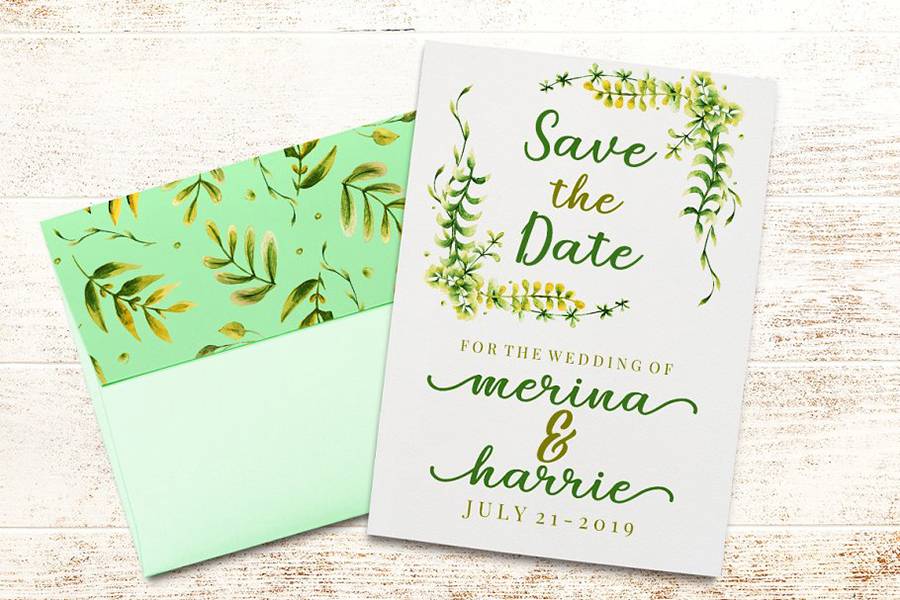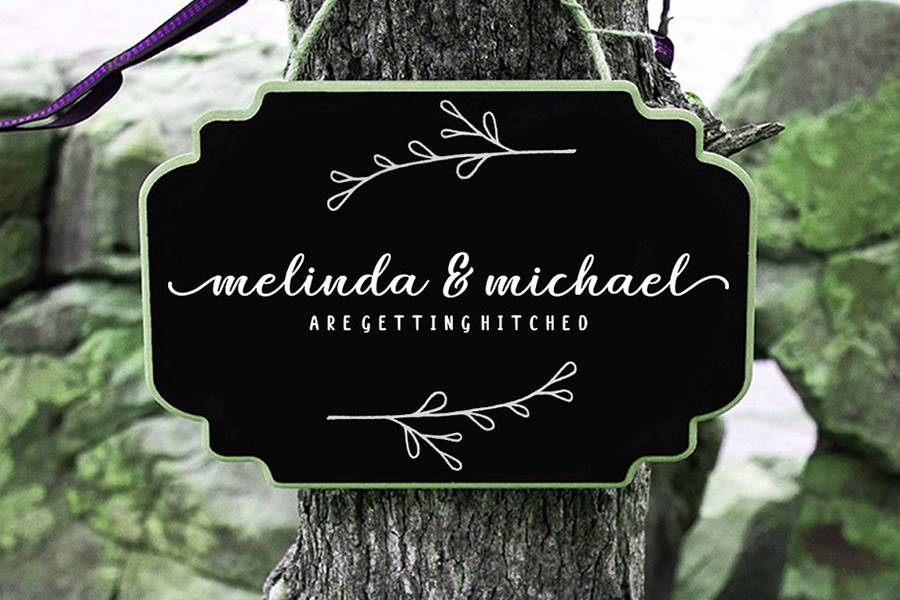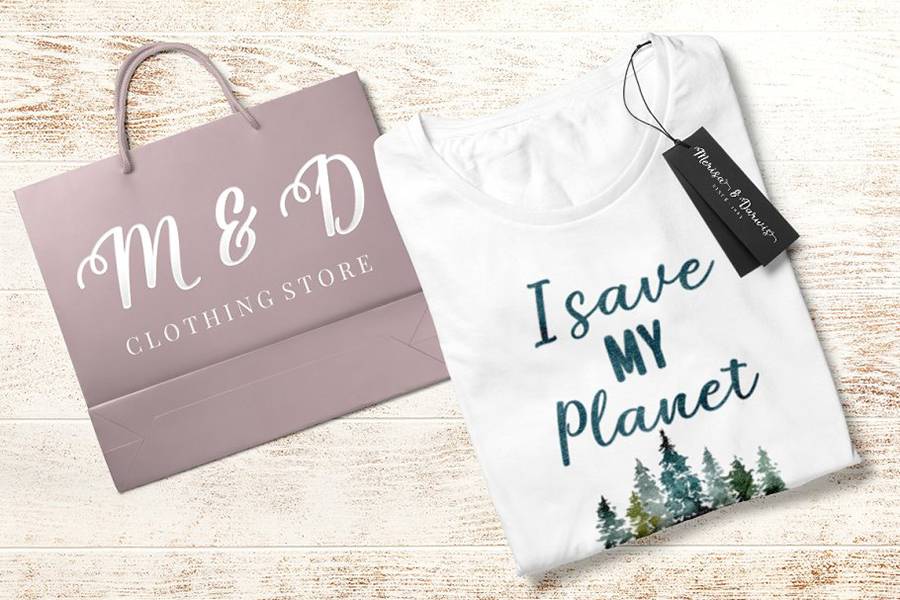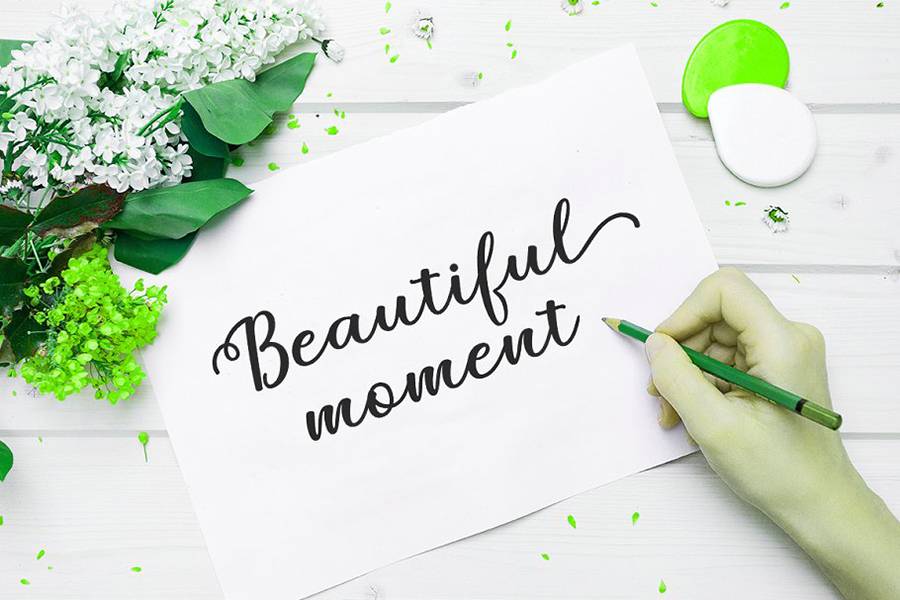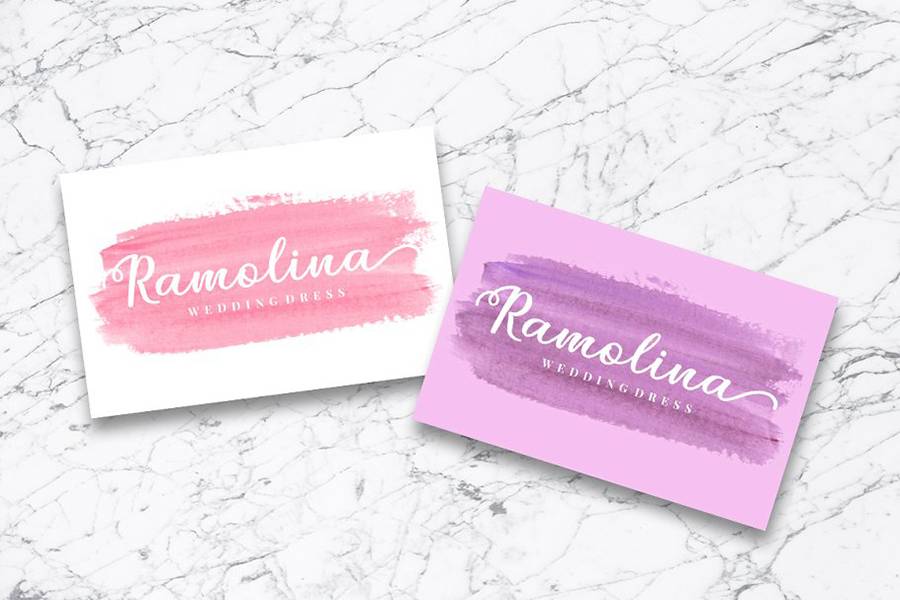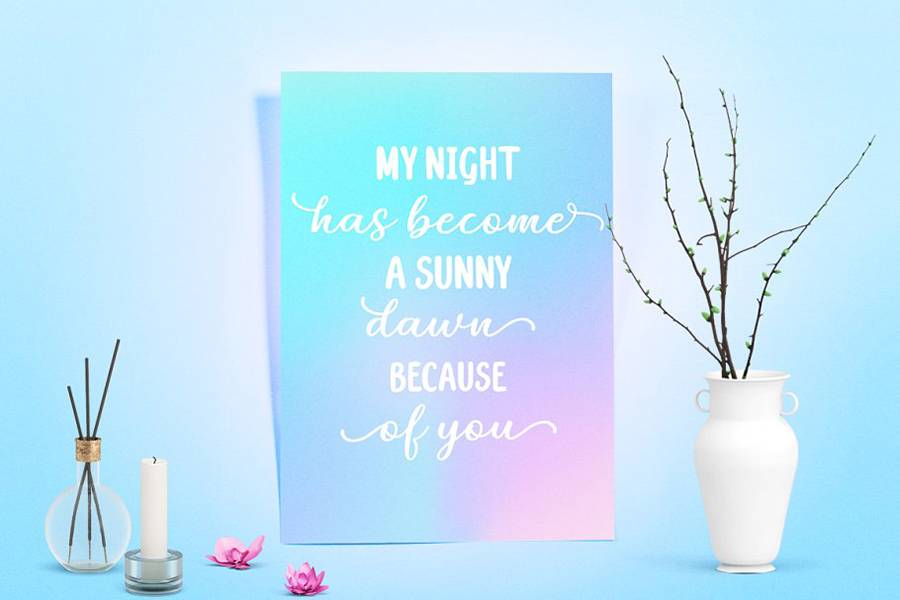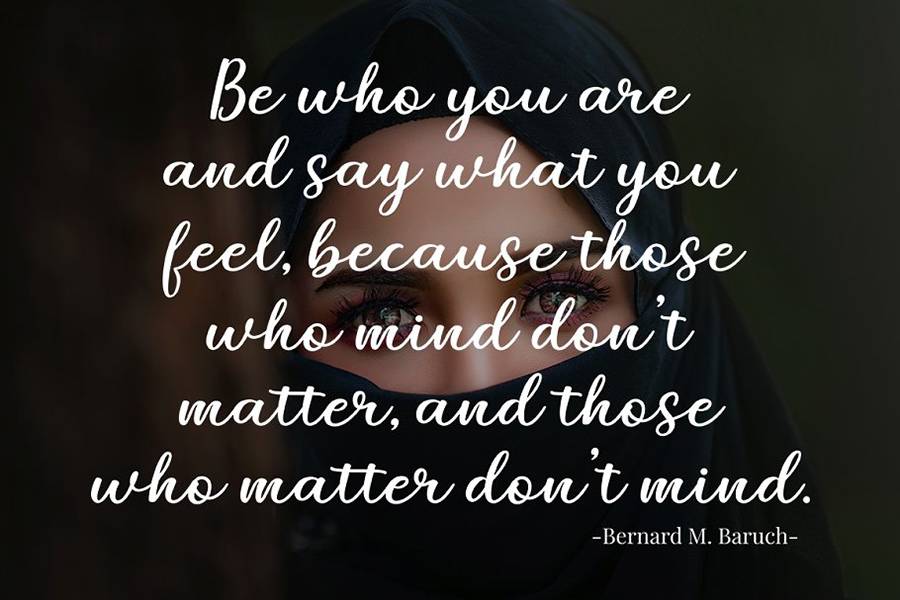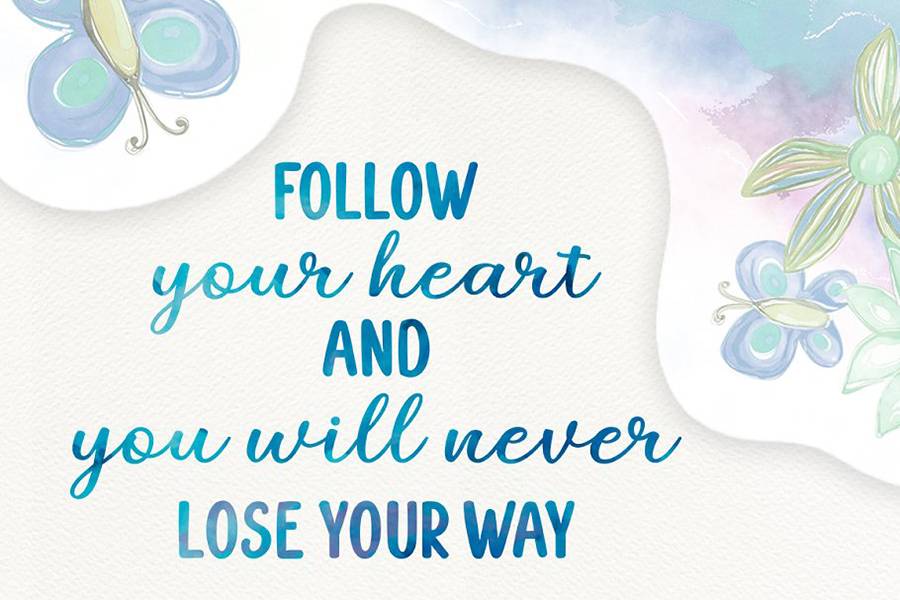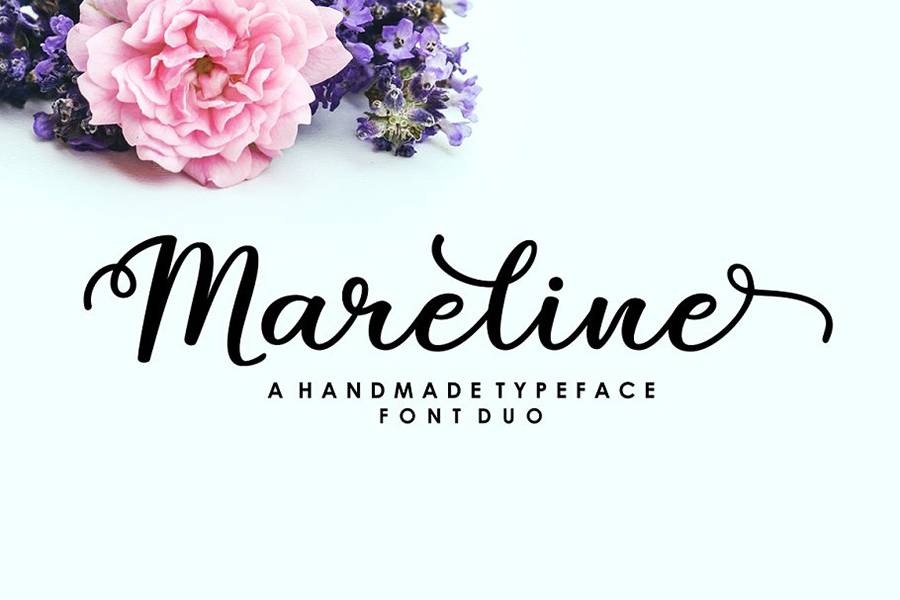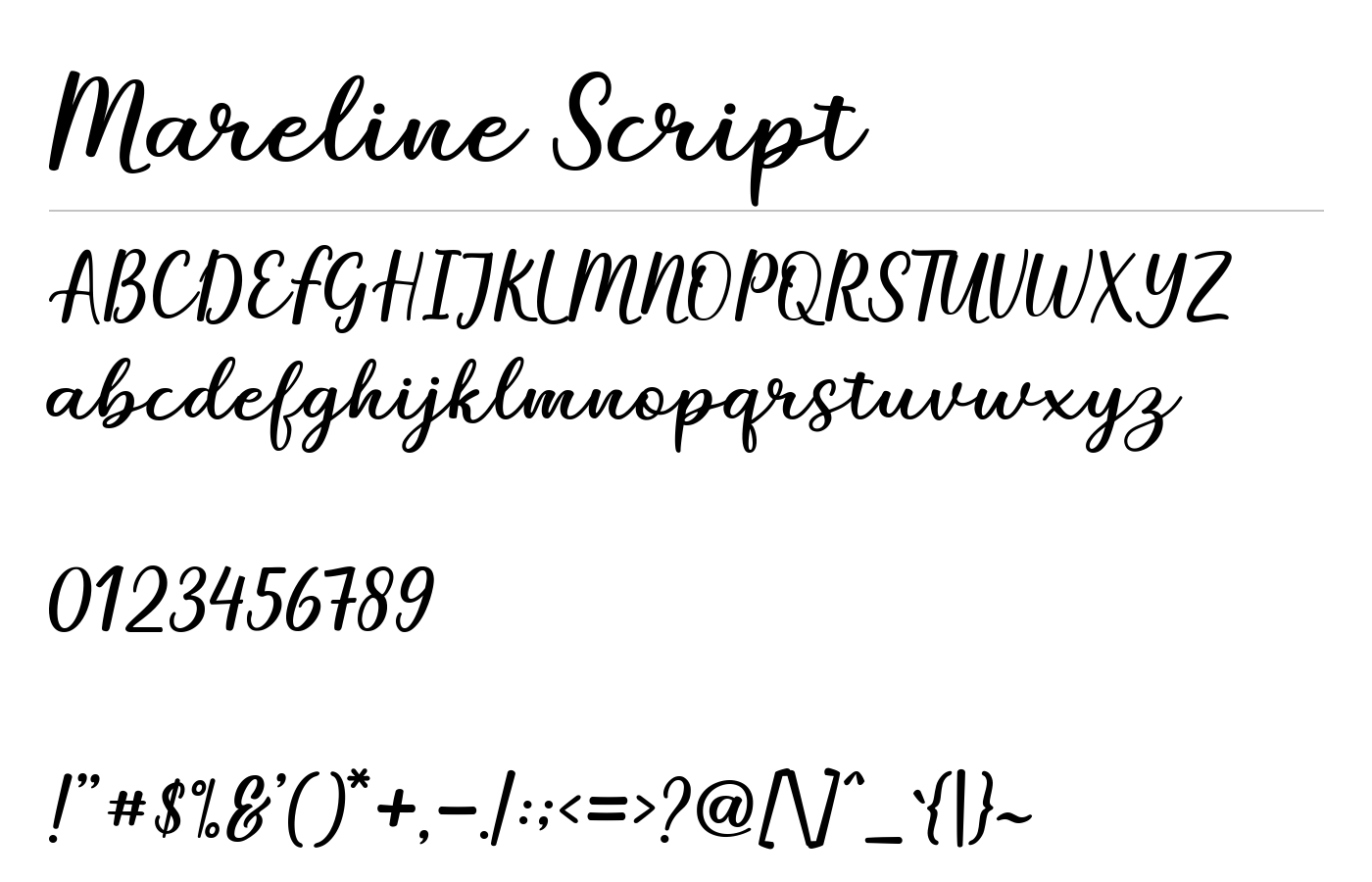
Mareline Script is a lively and elegant script font with a handwritten charm, featuring smooth, fluid strokes and a moderate contrast that gives it a natural, inviting flow. Its balanced x-height and clear letterforms make it ideal for stylish branding, invitations, and creative projects that want to convey warmth and personality. This font works well where you want a touch of handcrafted sophistication without compromising readability.